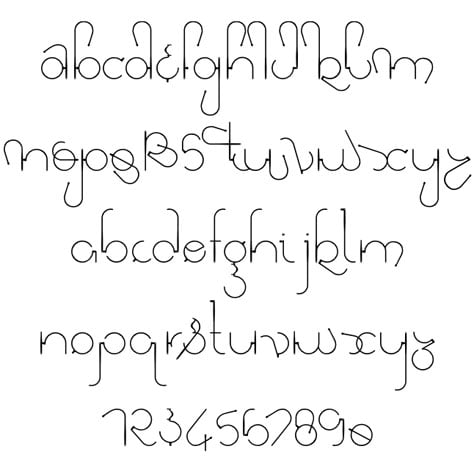
Download a Free Font Inspired by Gandhi's Glasses
Gandhijifonts officially launched on October 2, 2010, to mark the 141st birthday of Mohandas Karamchand Gandhi, the Indian political and spiritual leader. The organization states that typefaces can be a “medium of expression that a man can use, not only to follow the Mahatma’s vision but also to start a revolution of his own, where the fonts will give the power to one’s words.”
Accordingly, Gandhijifonts has released a TrueType font based on Ghandi’s spectacles: